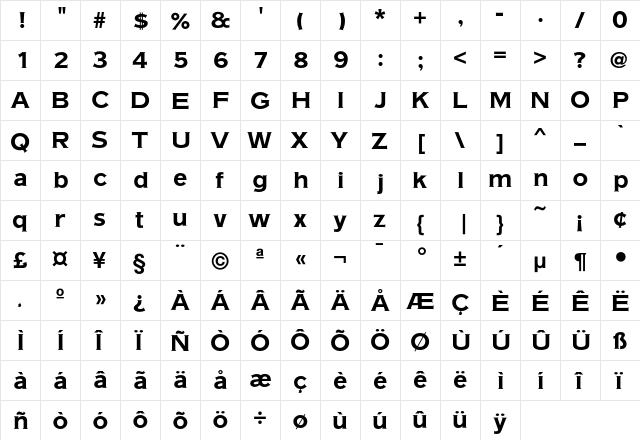
AmericanGothic Bold Font Preview
AmericanGothic Bold
AmericanGothic Bold Font Details
Design Context for AmericanGothic Typeface
AmericanGothic takes a clean, functional approach — its unadorned letterforms prioritise legibility and work reliably across screen and print environments. Its bold stroke weight gives it real presence on the page.
Well-suited to navigation labels, product packaging, and anywhere legibility at scale is essential.
Font Pairing: Use AmericanGothic for headlines alongside a lighter-weight sans or serif for body copy to establish clear visual hierarchy.
Pro Tip: Use AmericanGothic for UI labels, navigation, and short-form body copy where clean legibility is the priority.